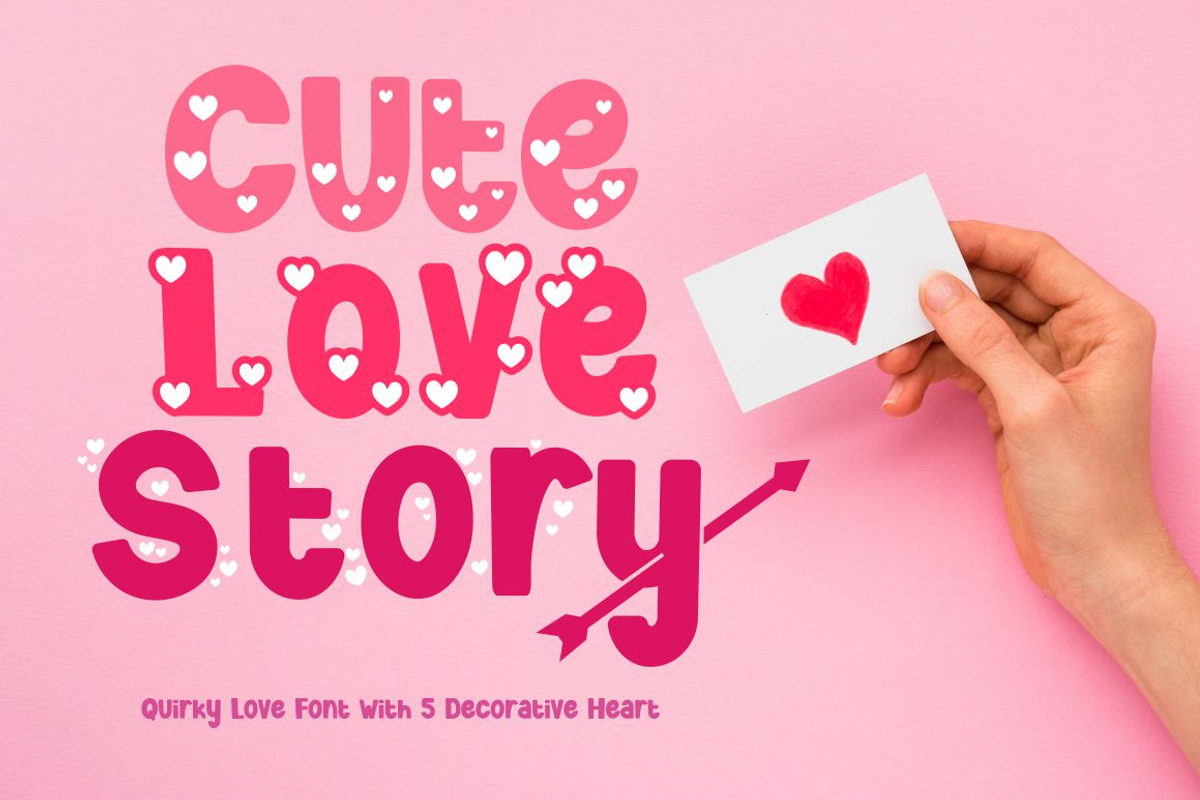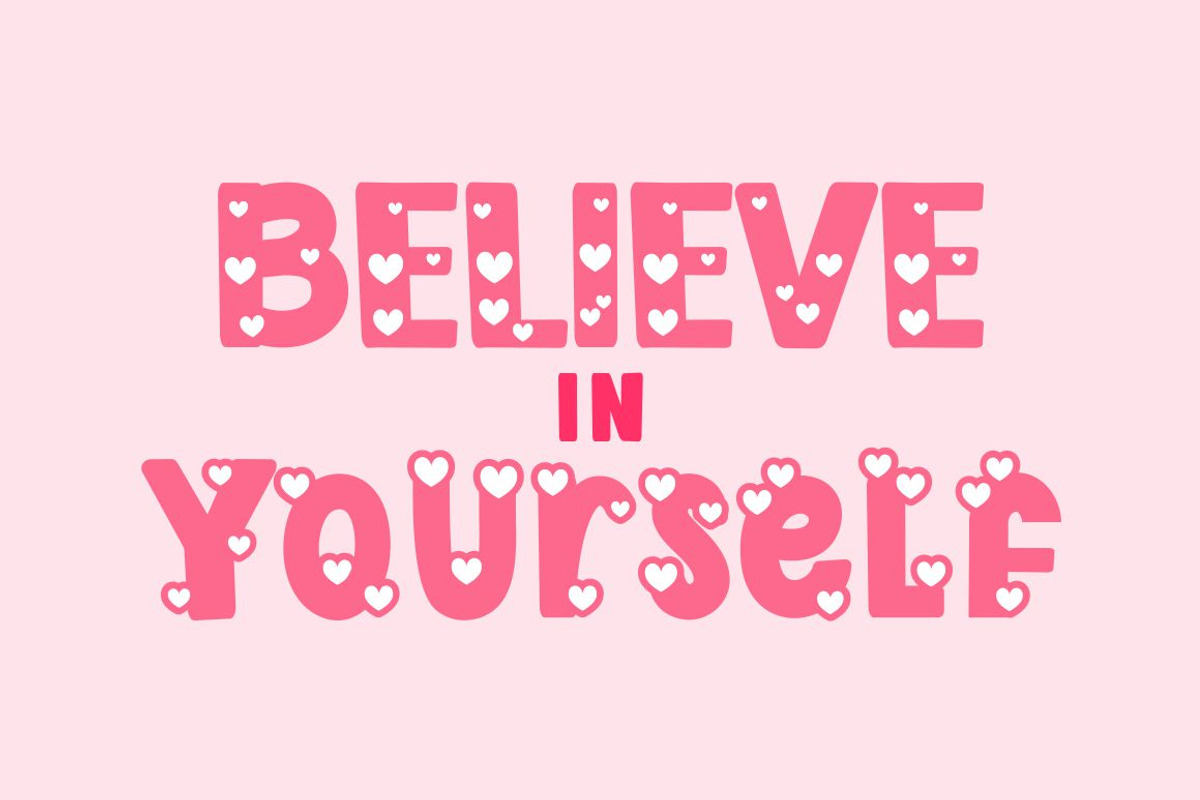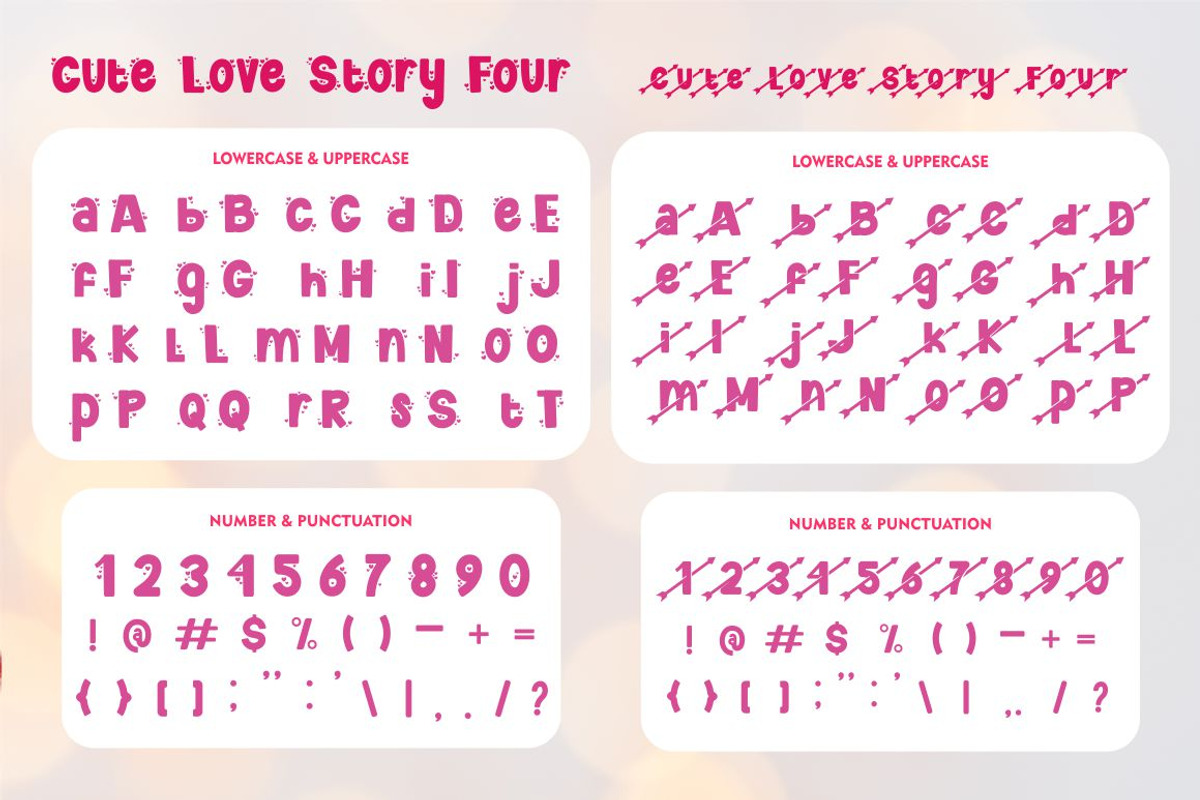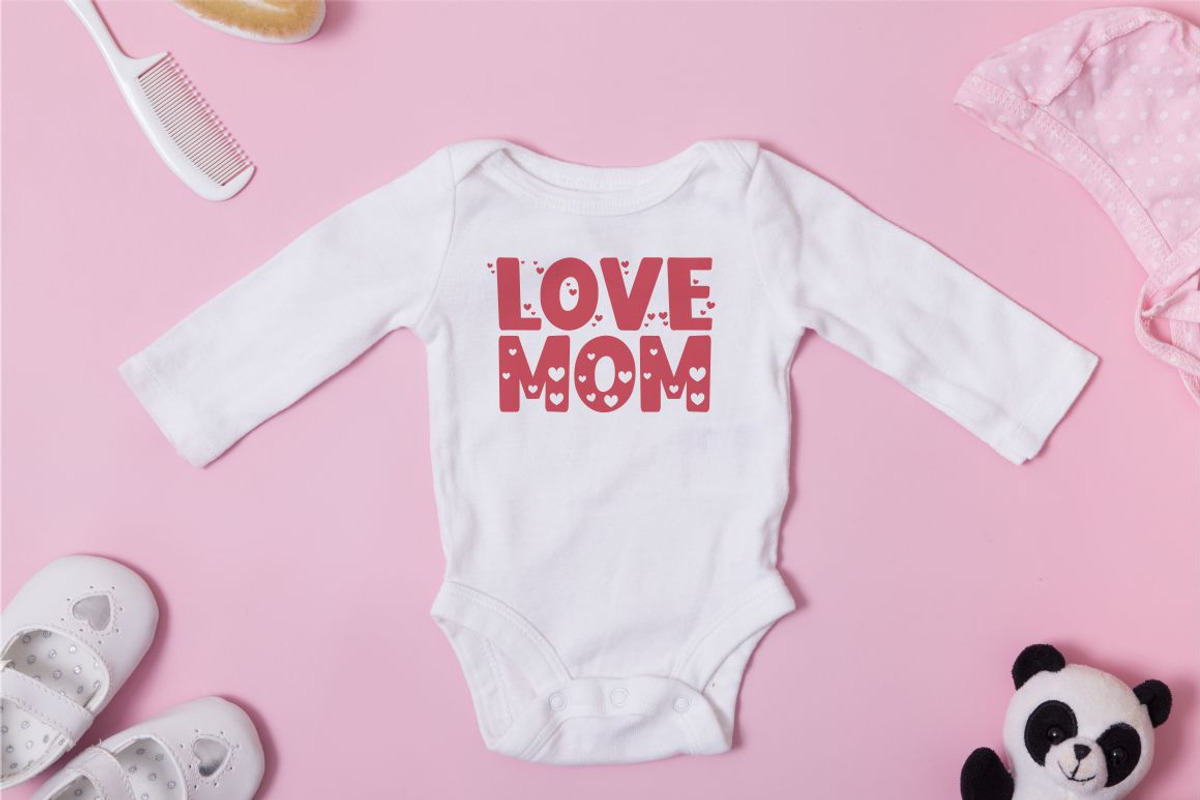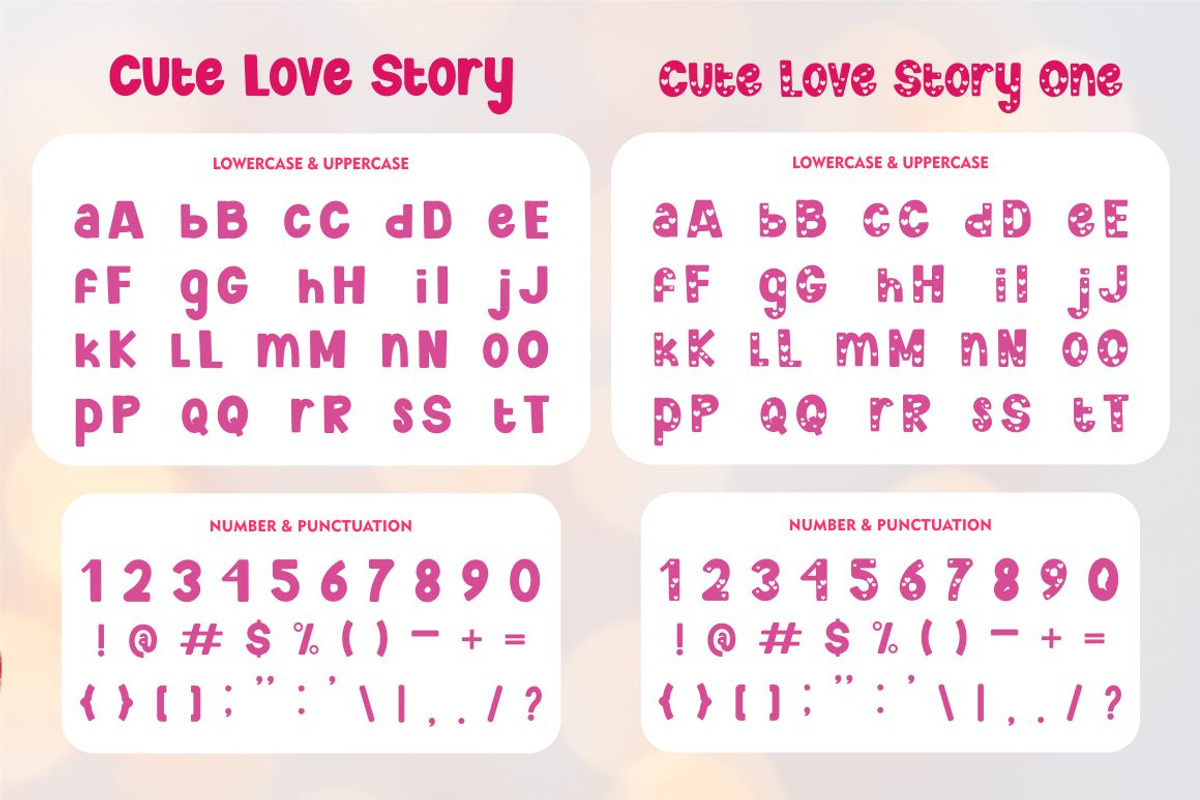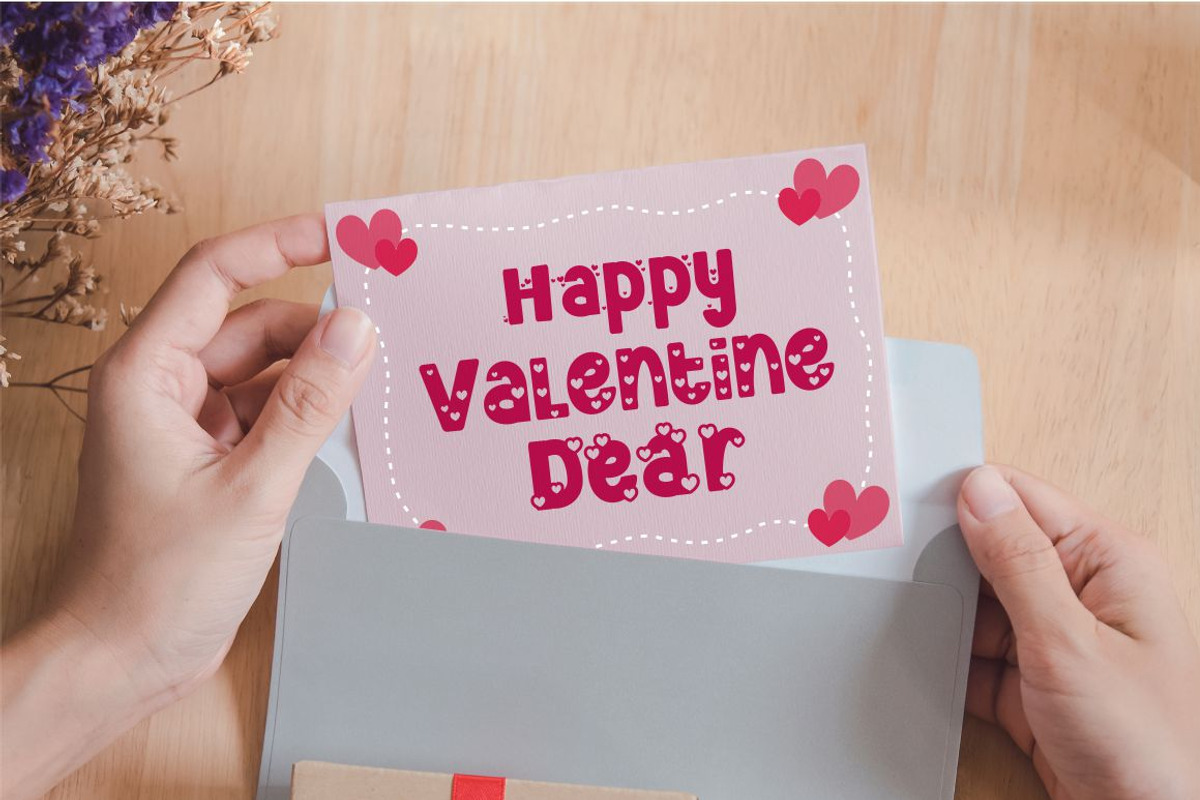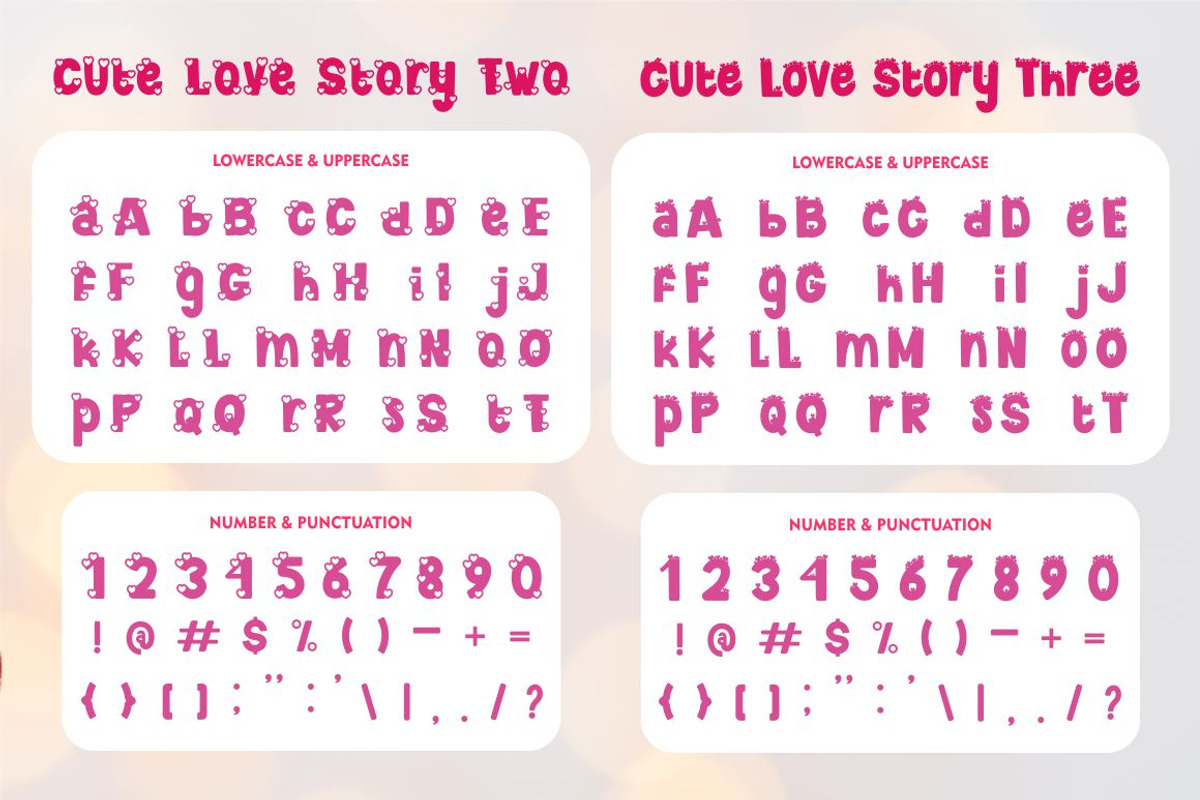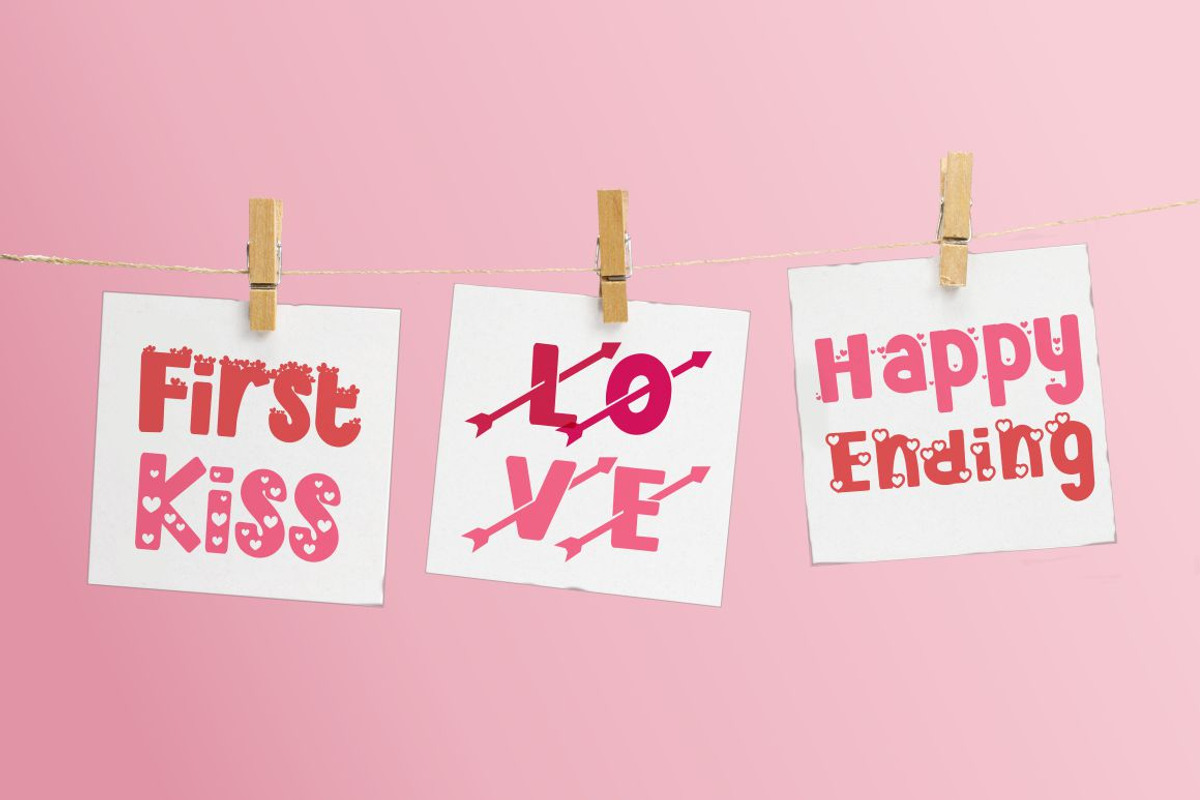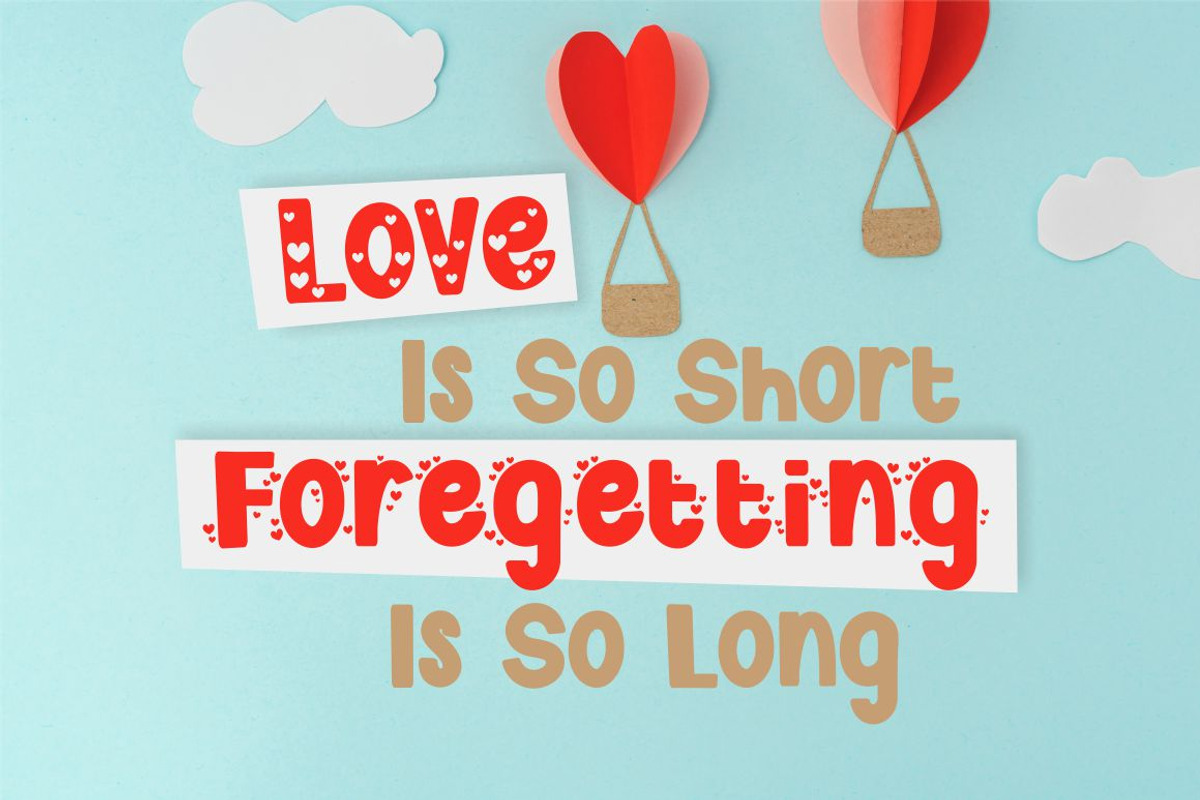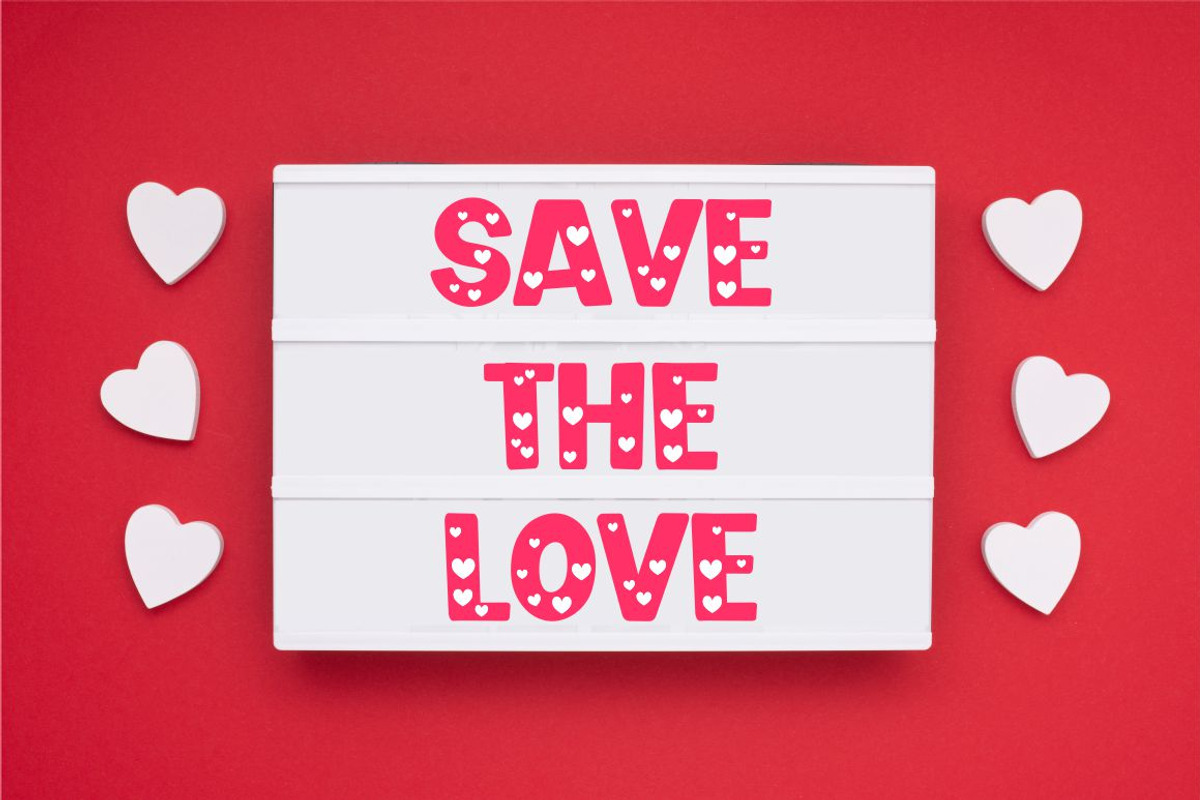
Cute Love Story - Quirky Love Font
Cute Love Story
Introducing a lovely quirky font called "Cute Love Story", a fun and playful font with 5 different font versions. Each version of the font has a different heart decoration. Great for projects related to love. Cute Love Story best uses for valentine, wedding, invitation, heading, cover, poster, logos, quotes, product packaging, header, merchandise, social media & greeting cards and many more. This font is also support multi language.
Comes with feature :
- Number, Punctuation And Symbols
- Multilanguage Support.